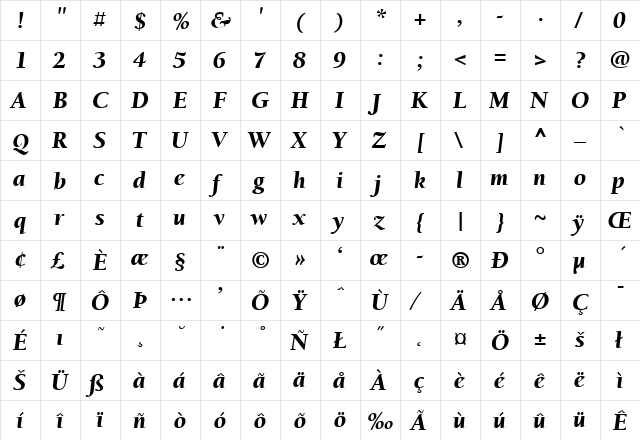
Berkeley-BlackItalic Regular
Design Context for Berkeley-BlackItalic Typeface
Berkeley-BlackItalic is a composed and adaptable typeface that performs quietly and consistently across a wide range of design contexts. The dynamic lean of this cut emphasises speed and emphasis in any layout.
Pro Tip: Try Berkeley-BlackItalic for annotation and caption copy alongside an upright companion — the contrast in angle creates a dynamic but ordered typographic system.